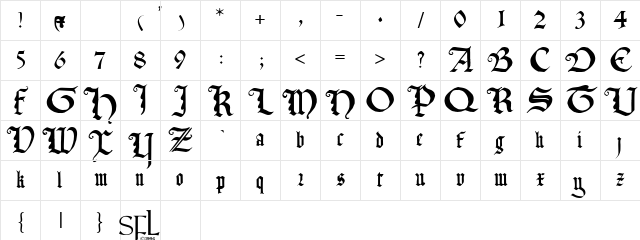
TexturaQuadrata!" Regular Free Font
TexturaQuadrata!" Regular
Design Context for TexturaQuadrata!"
TexturaQuadrata!" draws on the rich tradition of blackletter calligraphy, with dense, angular strokes that evoke medieval manuscripts and old-world craftsmanship.
Font Pairing: Pair with a clean neutral sans-serif for body copy to let TexturaQuadrata!"'s character lead without overwhelming the composition.
Pro Tip: Reserve TexturaQuadrata!" for display and logo use - pair it with a clean sans-serif for body copy to prevent the composition from feeling oppressive.